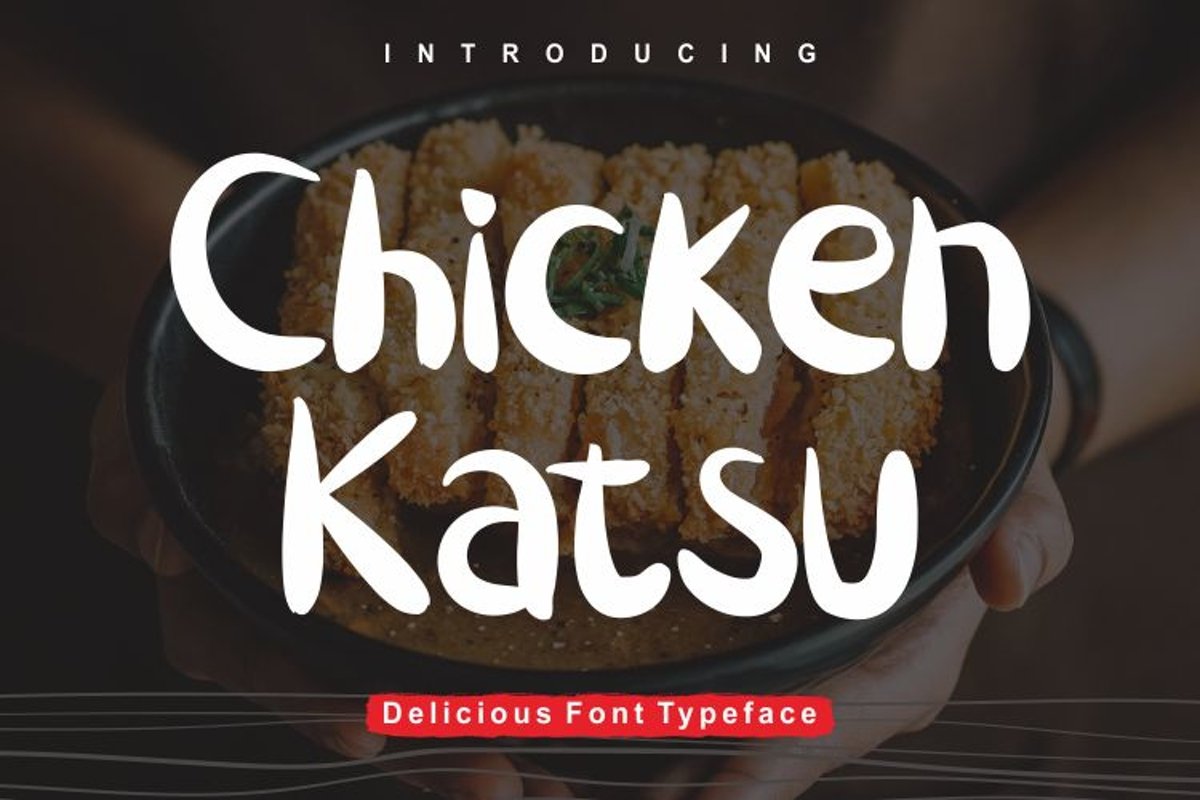
Chicken Katsu
Chicken Katsu is a brush handmade font, cute and cool for your project . Chicken Katsu is really Match for Branding, Logo Design, Menu headline , Clothing, Poster and etc.